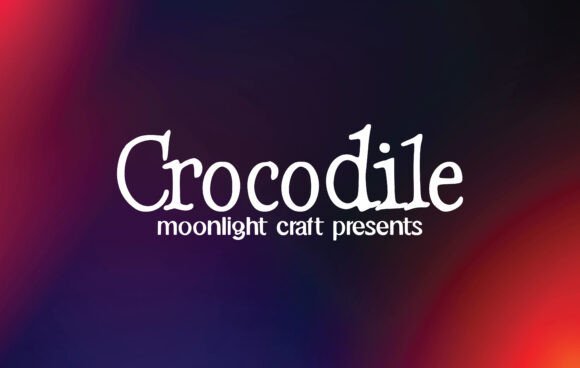
Designed to be a true favorite, the Crocodile Font is more than just a pretty face – it’s a versatile and legible font that shines in both title and body text. Whether you’re crafting magazine headlines, designing t-shirts, or creating social media graphics, this font is the perfect partner in crime. And with its limitless possibilities, it’s no wonder the Crocodile Font has become a hot favorite among designers.
Crocodile Font Key Features
- Unique Characteristics: The Crocodile Font features a distinctive, hand-drawn design with bold lines and playful textures, adding a touch of whimsy to any design.
Crocodile Font Review
Overall, I think the Crocodile Font is a fun and quirky addition to any design project. ✨ The bold and playful strokes of the font make it perfect for headings and titles. The font is also highly customizable, allowing you to adjust the size, color, and spacing to fit your design needs.
However, there are some limitations to consider. ⚠️ The font can look a bit cluttered when used for large blocks of text, and the strokes can become hard to read at smaller sizes. Additionally, the font may not be suitable for designs that require a more professional or formal tone.
Design Considerations
- Best for: Playful, creative designs, children’s books, or advertisements.
- Not recommended for: Formal documents, academic papers, or designs that require a clean, minimalist look.
Overall, I would give the Crocodile Font 4 out of 5 stars. It’s a great choice for designers looking to add a bit of whimsy to their projects, but it may not be the best fit for every design scenario.
Getting the Most Out of Crocodile Font
Use bold and italic styles to add emphasis to your text. Experiment with different font sizes and colors to create a visually appealing design. Combine Crocodile Font with other fonts to create a unique and eye-catching look.
Crocodile Font is ideal for creating bold, attention-grabbing headlines, titles, and headings. Use it to add a touch of playfulness and whimsy to your designs. It’s also great for creating logos, icons, and other graphics that require a fun and quirky font.